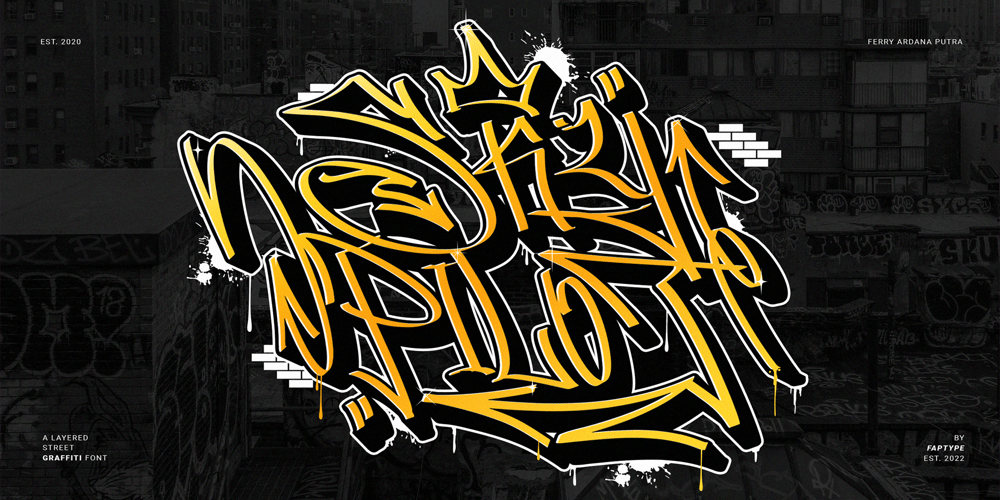
Skypilot Font Family was designed by Ferry Ardana Putra and published by Ferry Ardana Putra. Skypilot contains 2 styles and family package options. Hello there!We are introducing my new font – Skypilot!This font is carefully selected from hundreds of letters. We manually created this font using a flat pen and make it as close as possible to street graffiti style. Not only that, we also make another typeface that is perfectly suited for this theme, Skypilot extruded! With those fonts, you can combine them as a pair to make them a layered style! You will make exquisite real street graffiti art just like on the wall that you saw in the city! Besides all this, the Skypilot Swashes and ornaments are designed to make your designs more fun!You can apply this font to t-shirt designs, posters, covers, video thumbnails, merchandise, wall, and so on to make it look special.———Skypilot features:A full set of uppercase and lowercaseNumbers and punctuationMultilingual language supportPUA Encoded CharactersOpenType FeaturesLayered Style+379 Total Glyphs+100 Graffiti Swashes and Ornaments included!———⚠️To enable the OpenType Stylistic alternates, you need a program that supports OpenType features such as Adobe Illustrator CS, Adobe InDesign & CorelDraw X6-X7, Microsoft Word 2010 or later versions. There are additional ways to access alternates/swashes, using Character Map (Windows), Nexus Font (Windows), Font Book (Mac) or a software program such as Pop Char (for Windows and Mac).⚠️For more information about accessing alternative, you can see this link: http://adobe.ly/1m1fn4Y